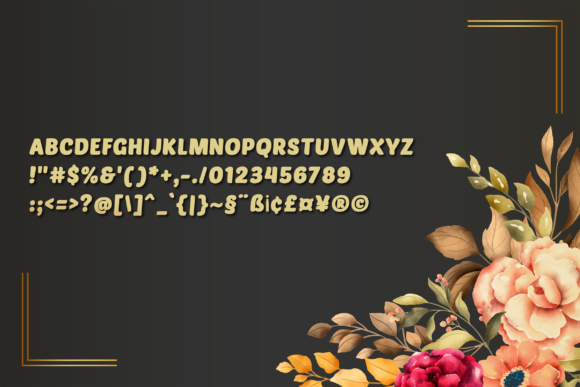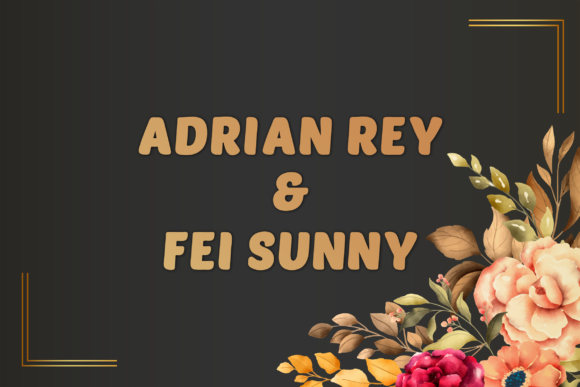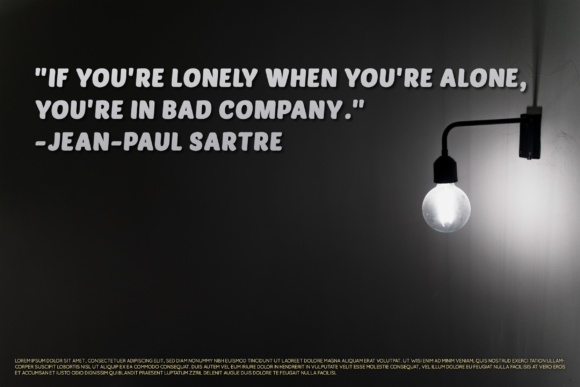
Introduction to Lexandrya Font
Lexandrya is a cute, yet elegant display font that radiates charm.
Fall in love with its extraordinary style .
Key Features of Lexandrya Font
Why Choose Lexandrya Font?